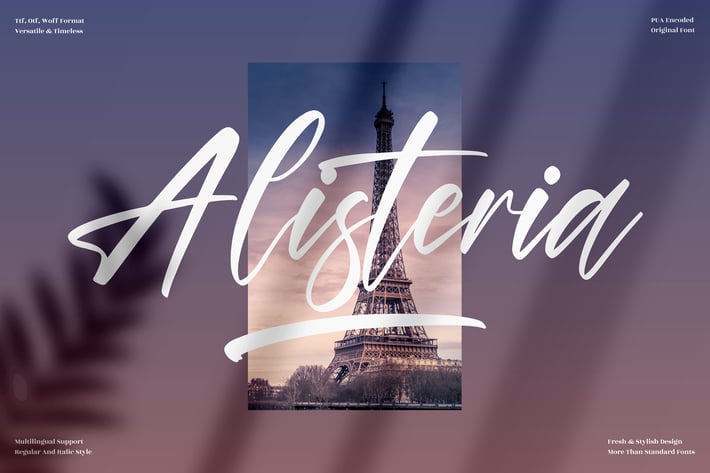
Alisteria Handwritten Font
Alisteria is a versatile handwritten font with a fresh and stylish design, perfect for both timeless and modern creative needs. With its natural flow and elegant curves, this font is suitable for a variety of digital and printed projects such as posters, branding, social media, invitations, and more. It comes with multilingual support, regular and italic styles, making it a well-rounded choice for your designs.
+ Handwritten script with elegant flow
+ Regular & Italic styles included
+ Multilingual character support
+ Smooth curves and natural strokes
Bring a timeless handwritten touch to your creative projects with Alisteria — where elegance meets versatility.